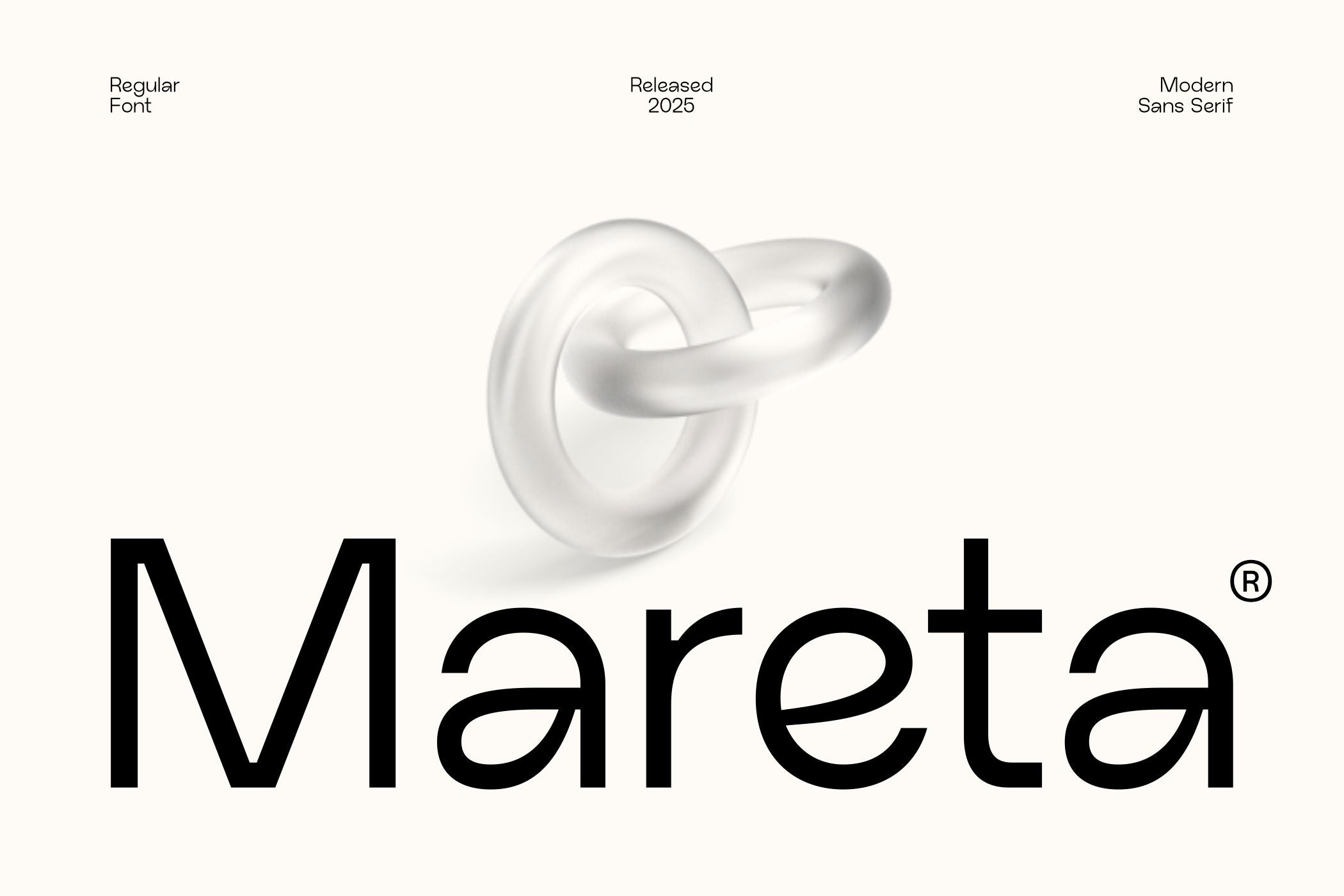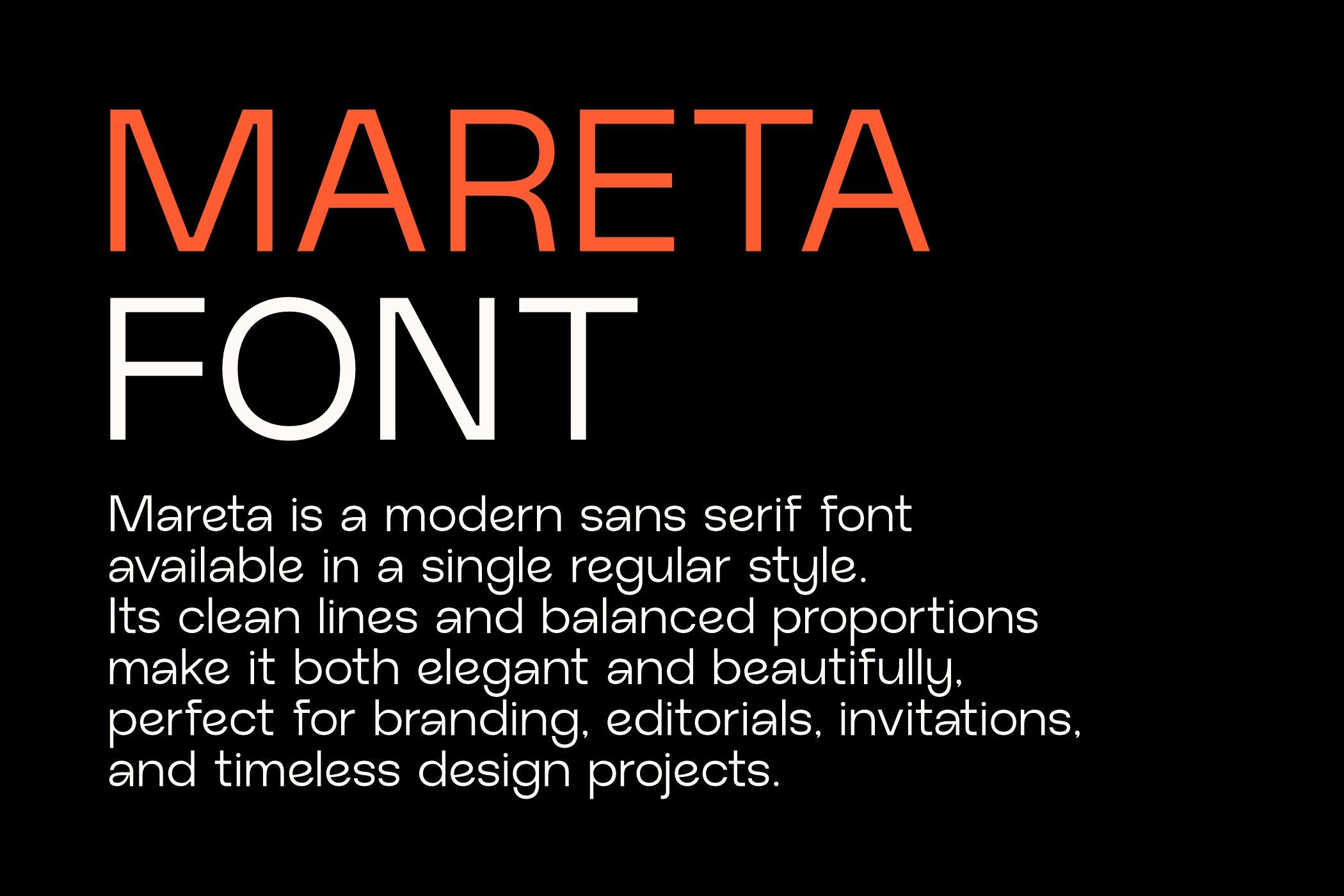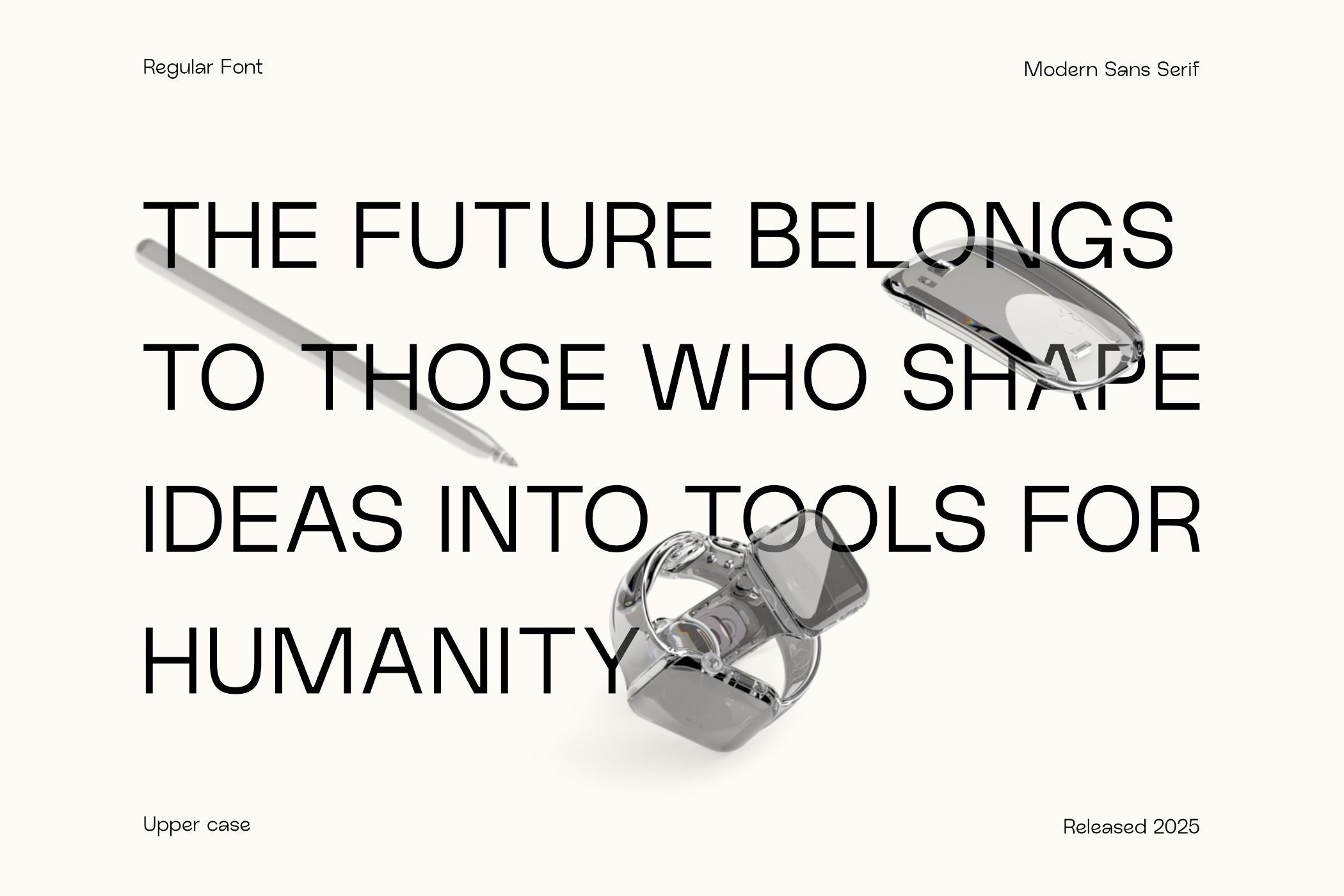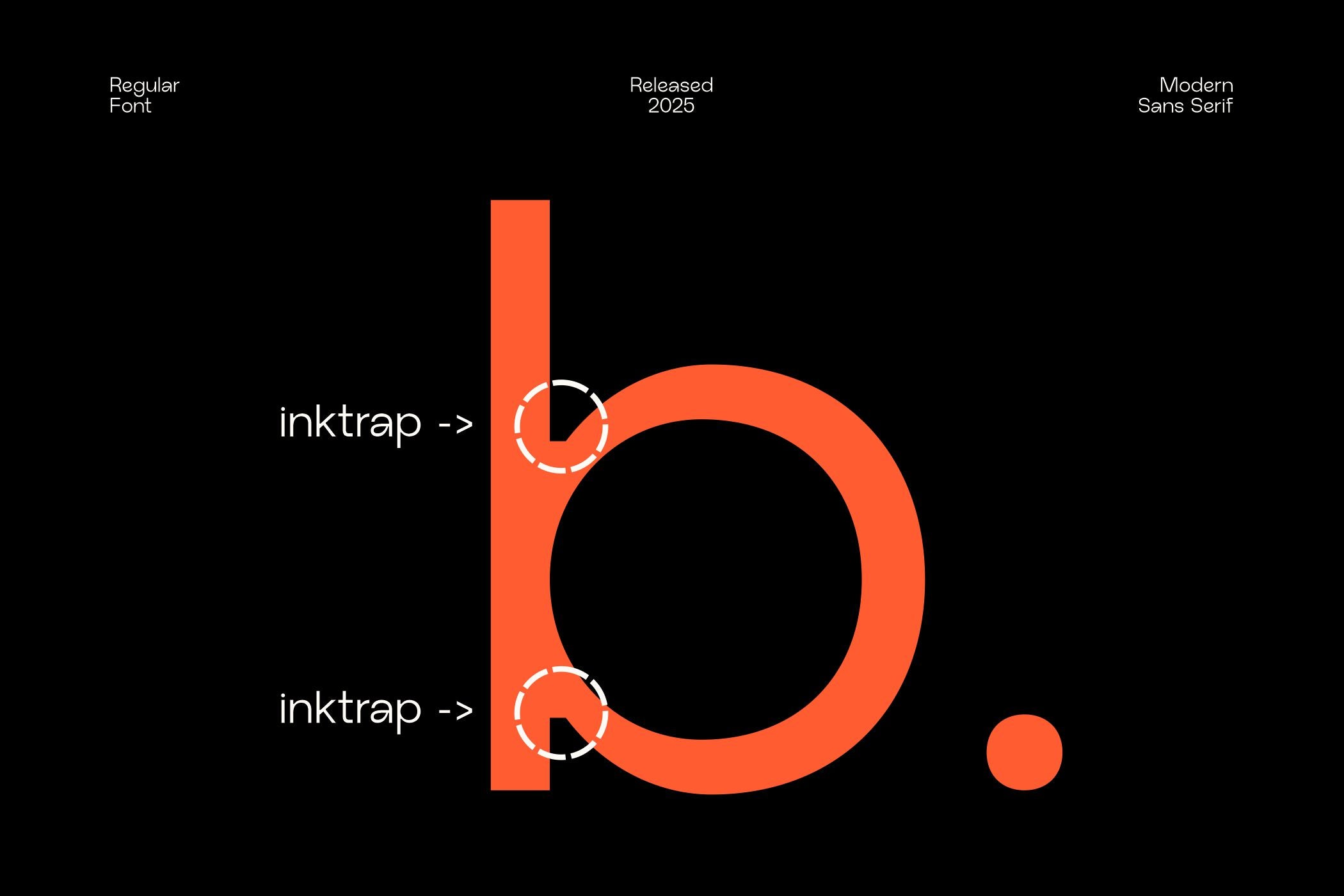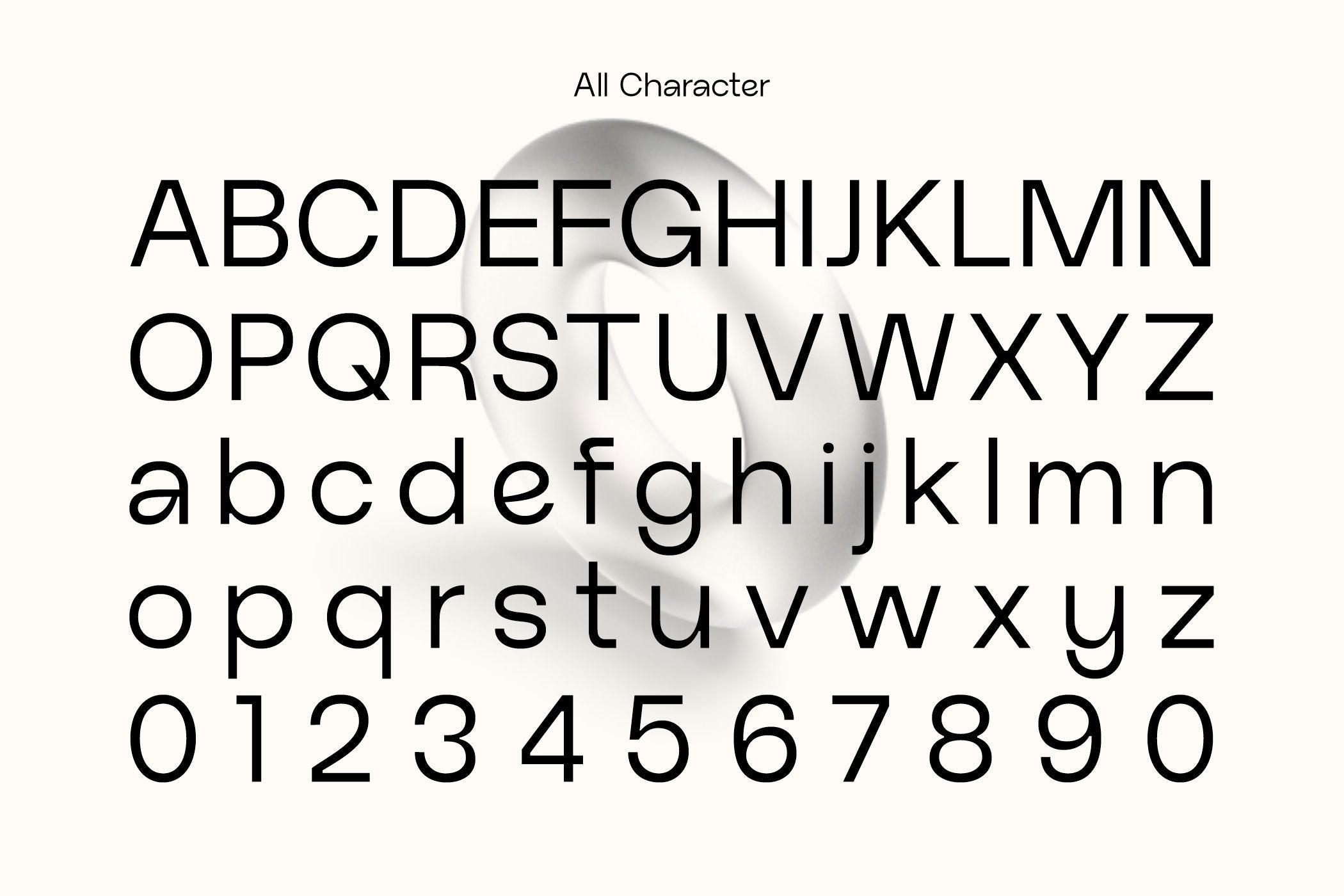
Mareta by Rar Typeworks, Modern Sans Serif is a clean and stylish font with a timeless modern touch. With just one regular style, it’s versatile enough for logos, branding, packaging, and more. Perfect for creating a bold yet elegant statement.